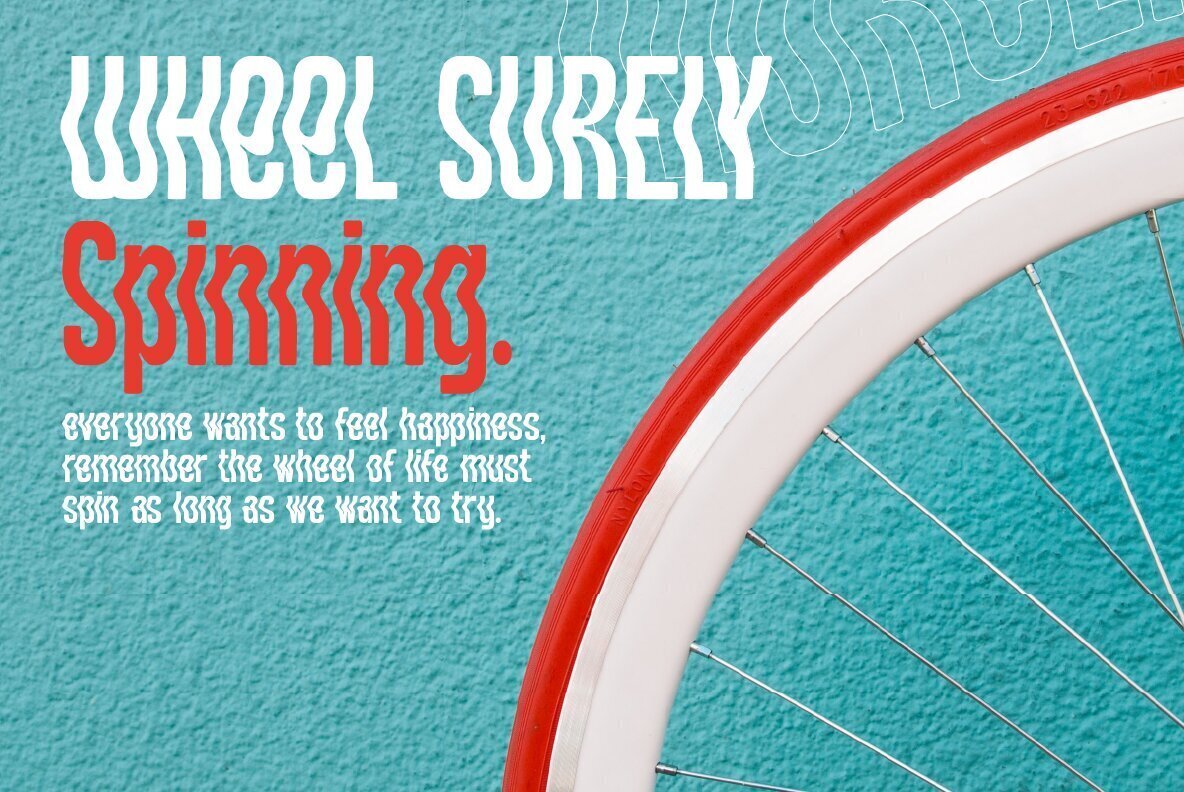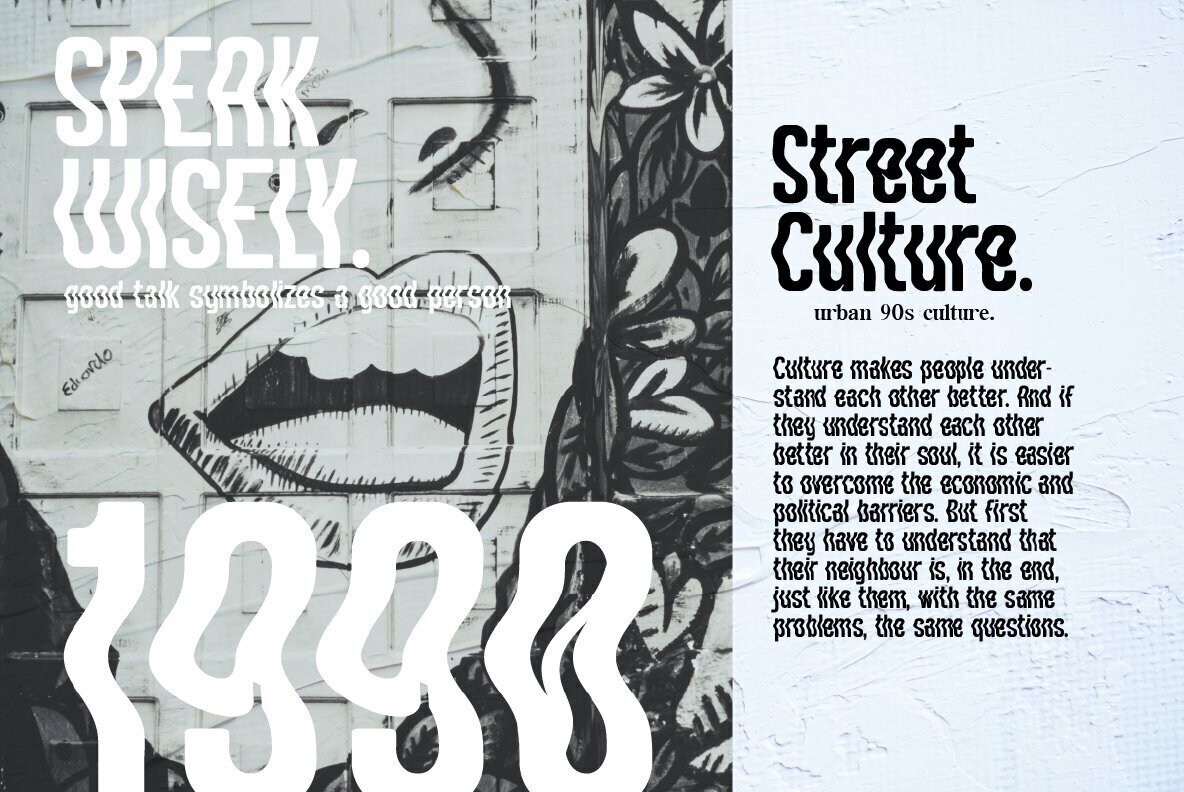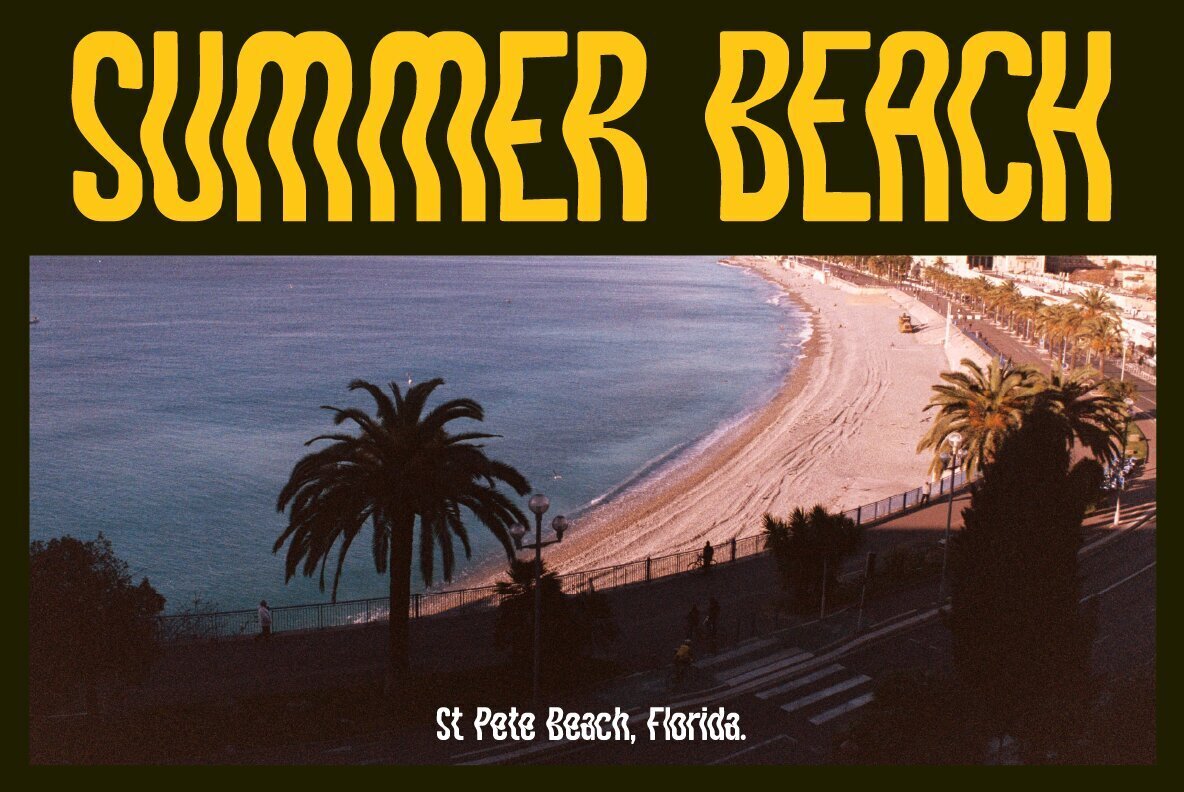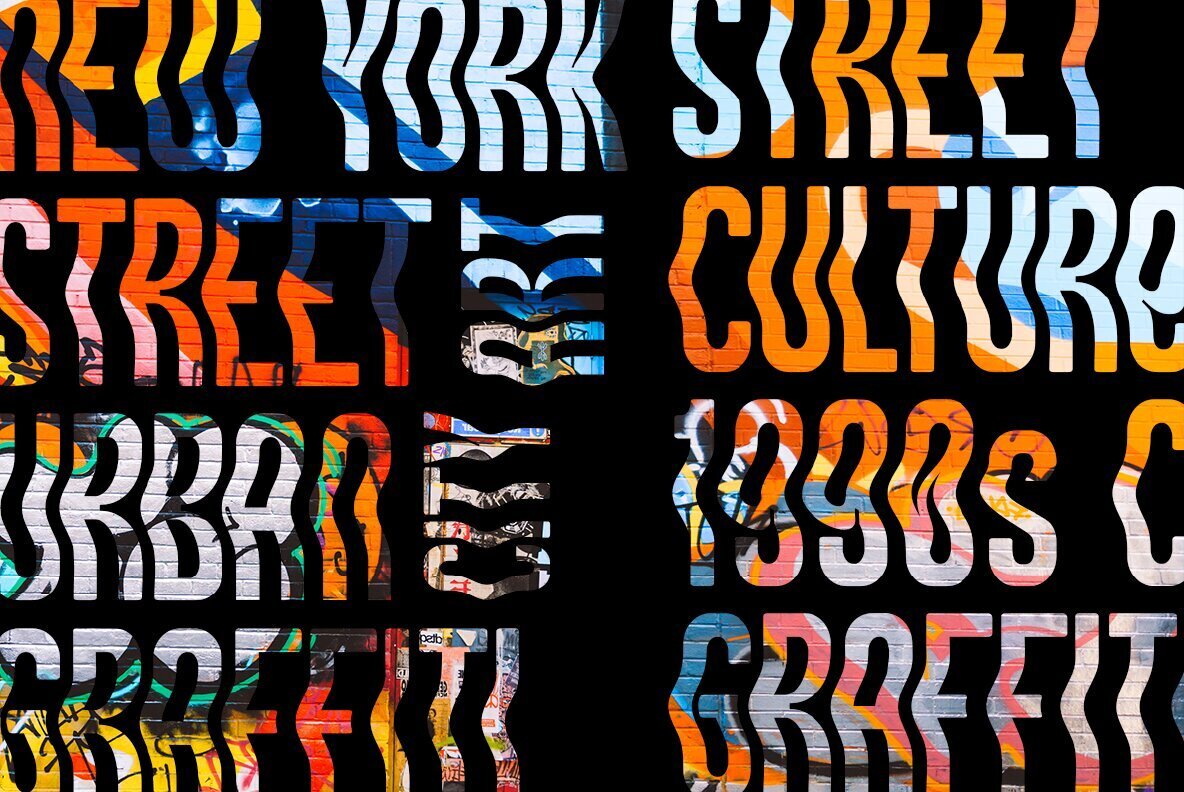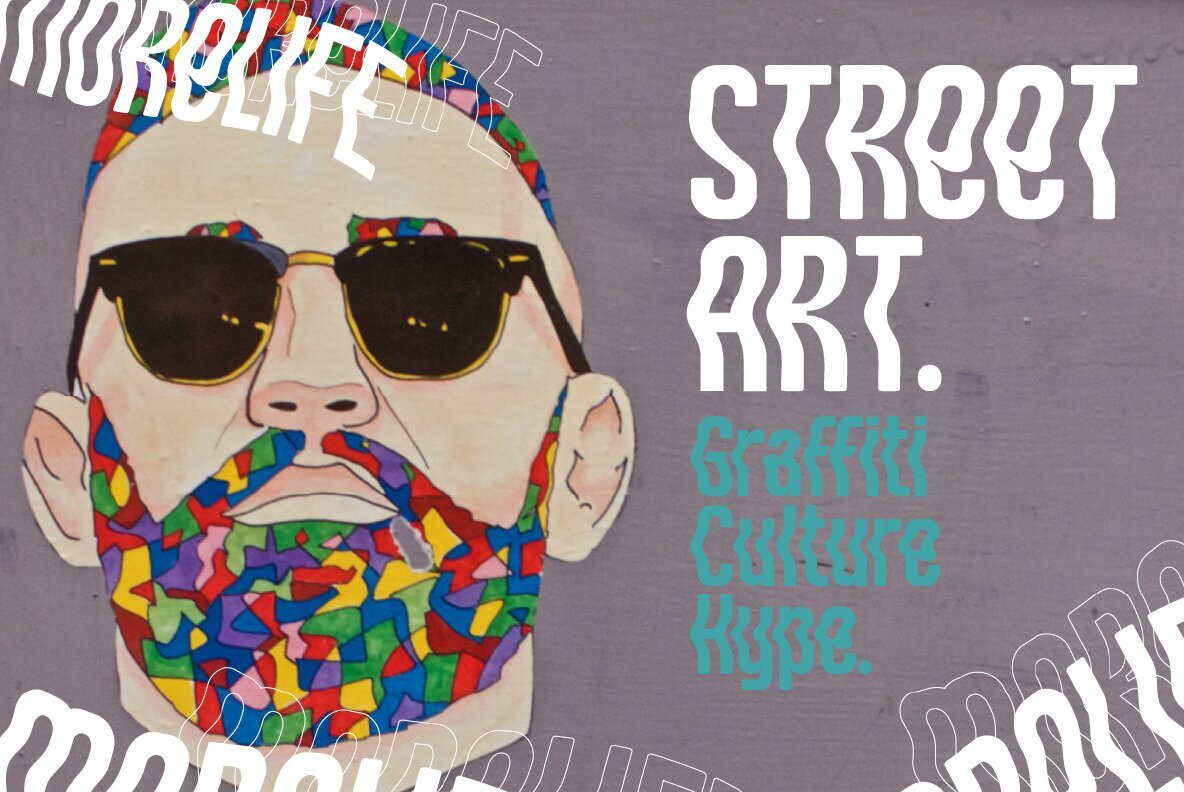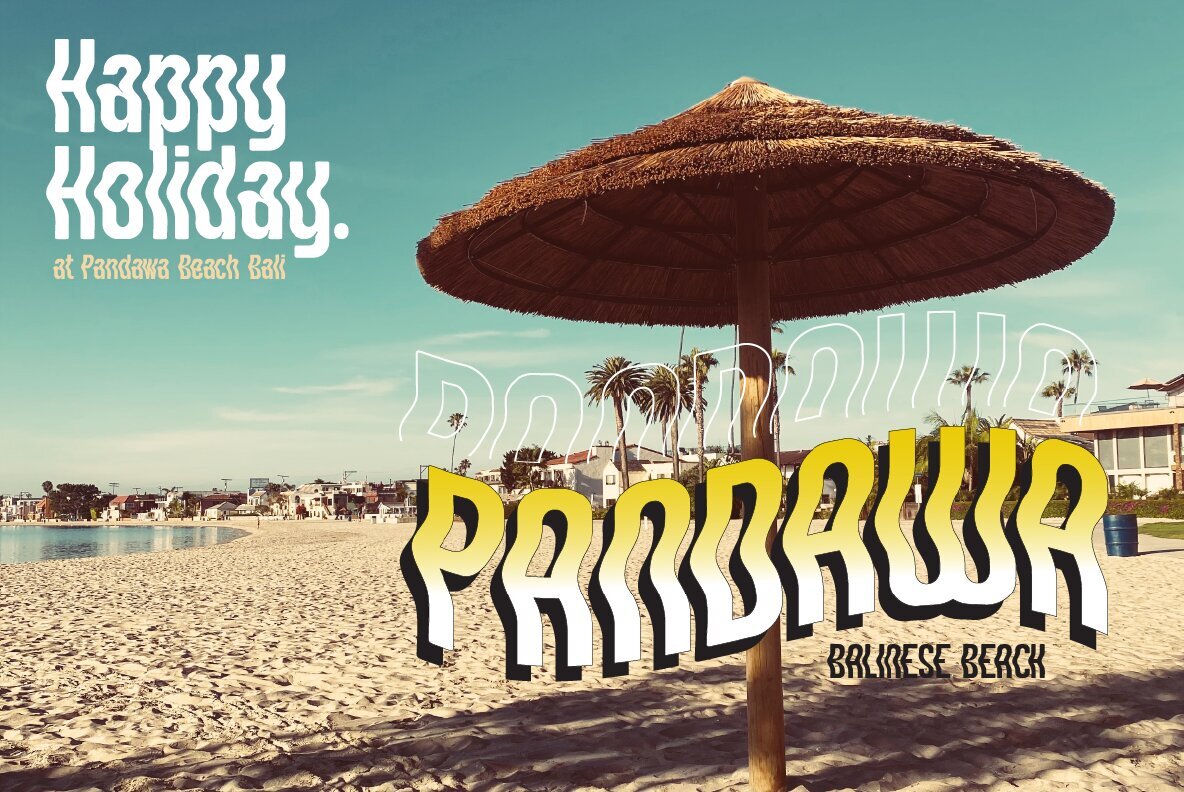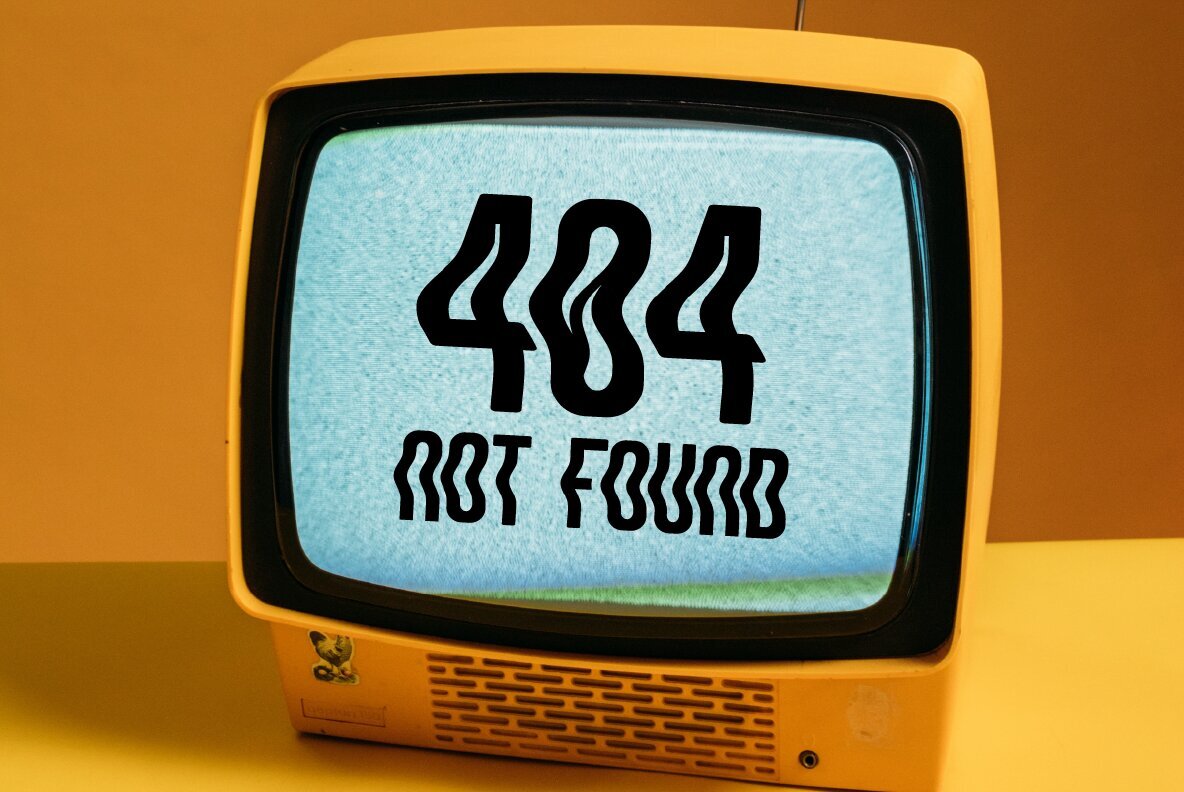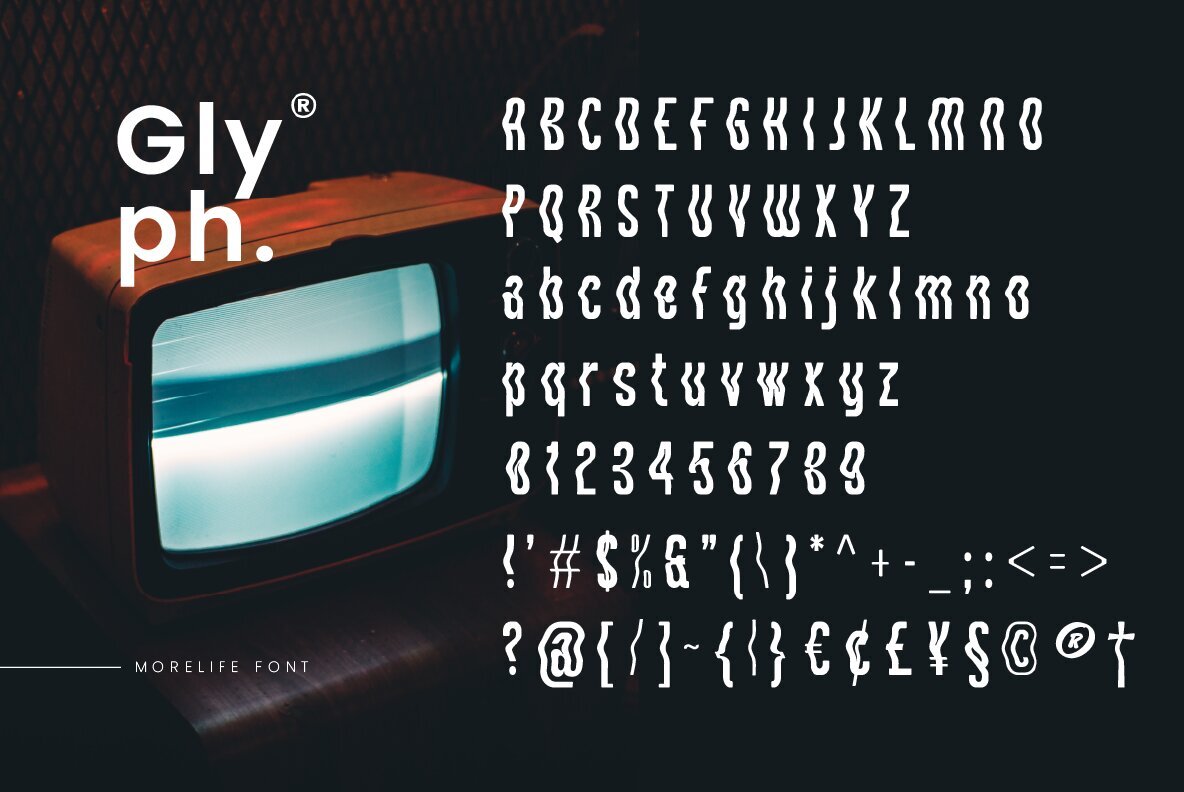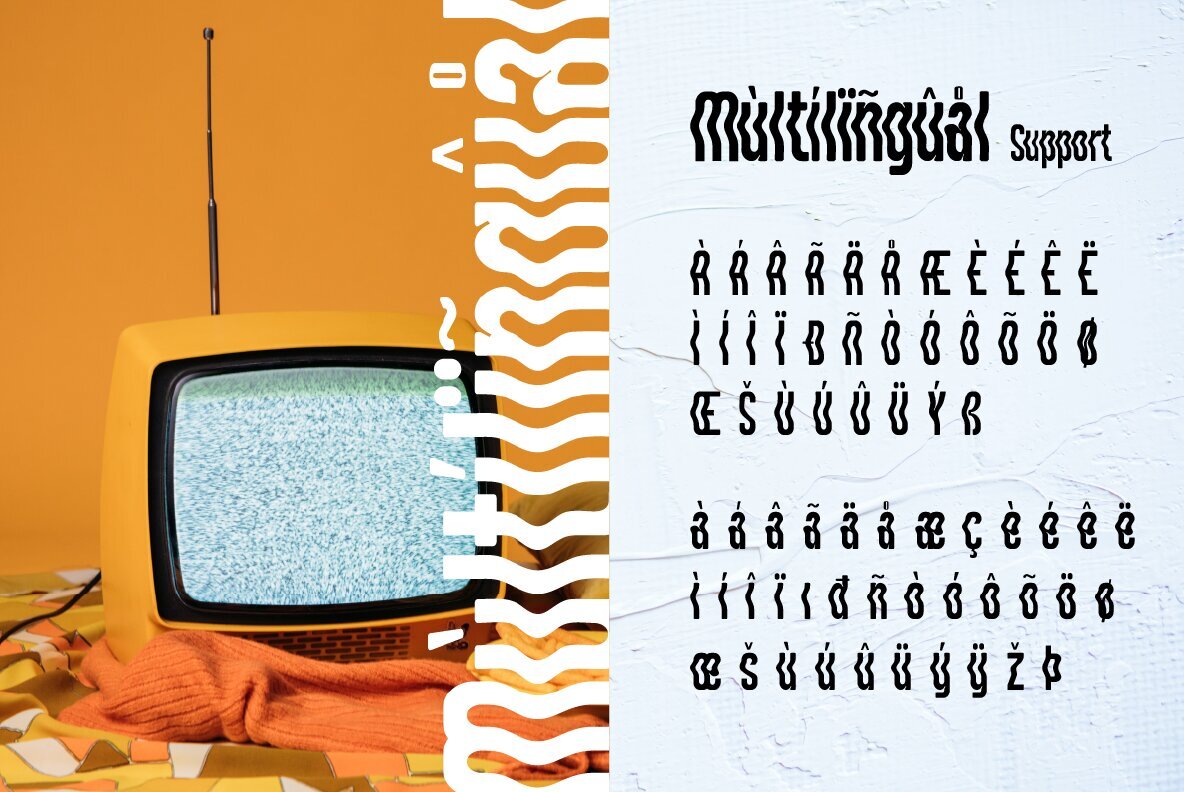
Morelife Font
Morelife
Morelife, designed by Rony Rizki Jaya, captures the vibrant essence of the 1990s with its bold and distinctive forms. An ideal fit for event posters, magazine covers, and hipster fashion brands, this typeface infuses a touch of nostalgia to every application. From t-shirts and totes to stylish text overlays on any backdrop, Morelife ensures a dynamic visual impact.Morelife Typeface: Nostalgic 90s Revival